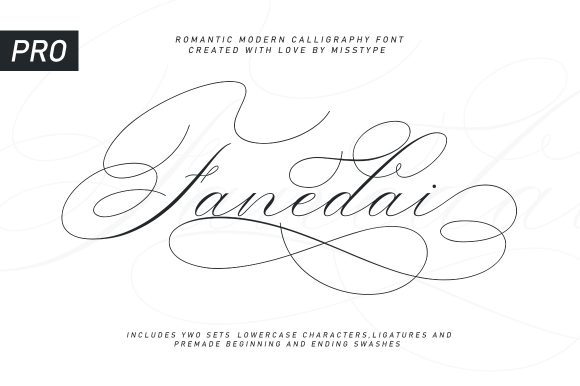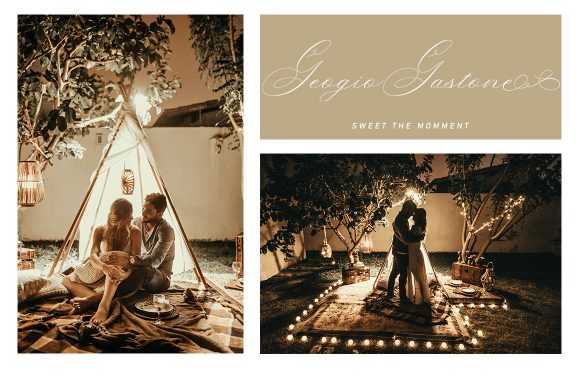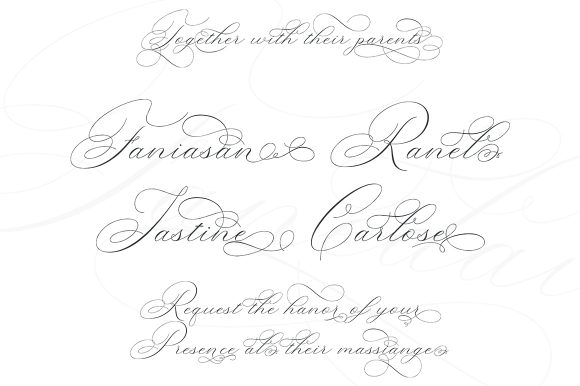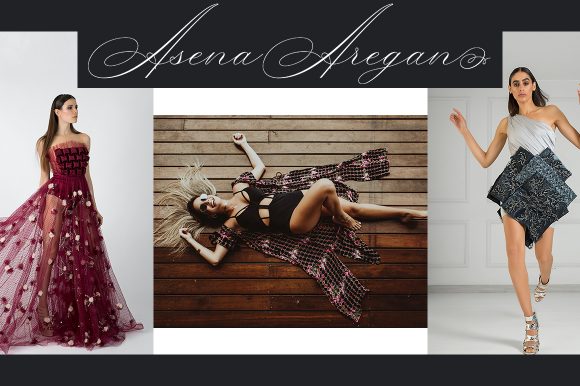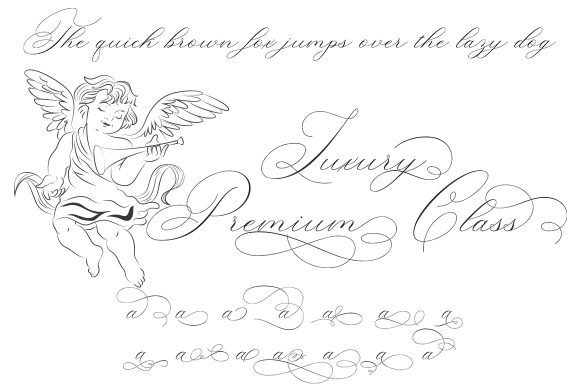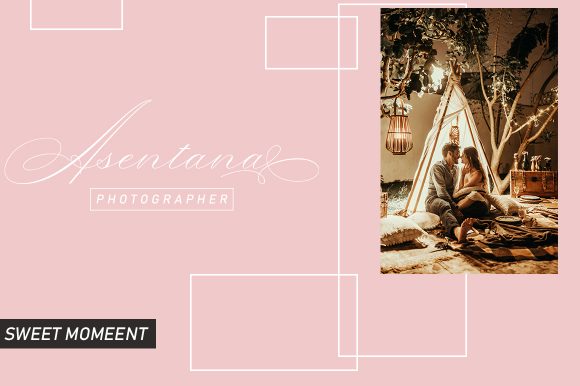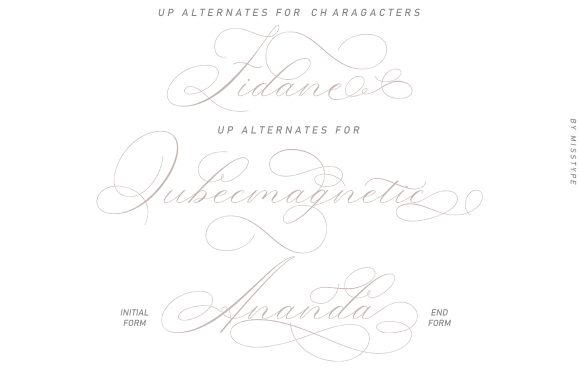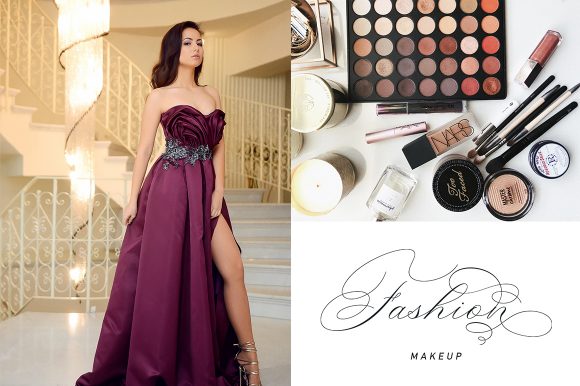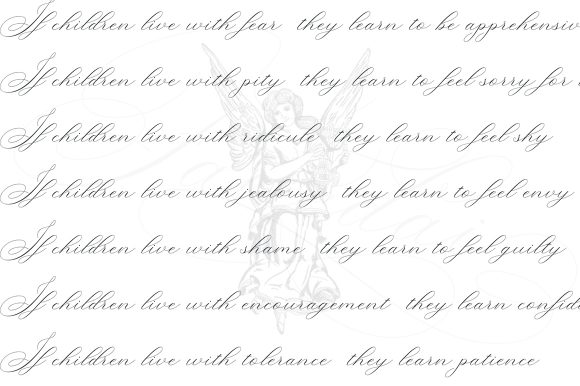
Fanedai Font
About Fanedai Font
Fanedai is a modern handwritten font with a special heart character. Fall in love with an authentic feel and use it to create beautiful wedding invitations, beautiful artwork, and funny greeting cards.
This font is coded PUA which means you can access all the amazing glyphs and swashes easily! It also has many special features including alternative flying machines and ligature.